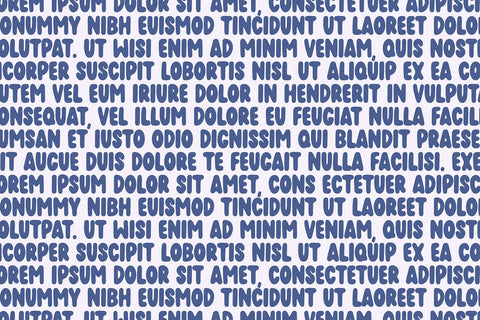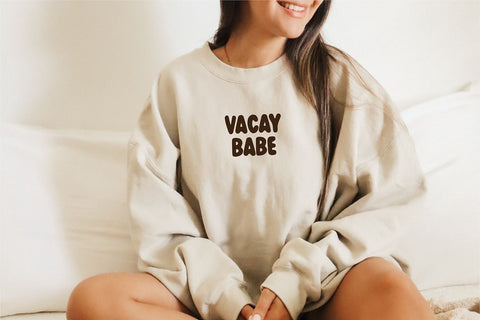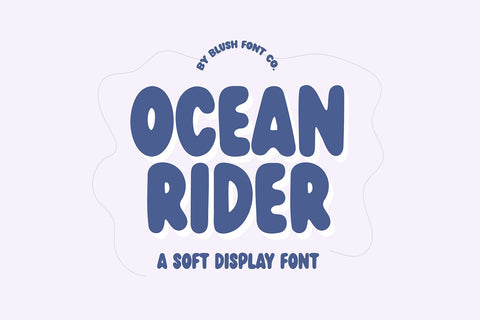
Ocean Rider Bubble Retro Font
"Ocean Rider" is a bold and soft display font.
This font is a trendy retro display font that is perfect for social media or crafty projects. Use it for branding, crafts for decor, invitations, and more!